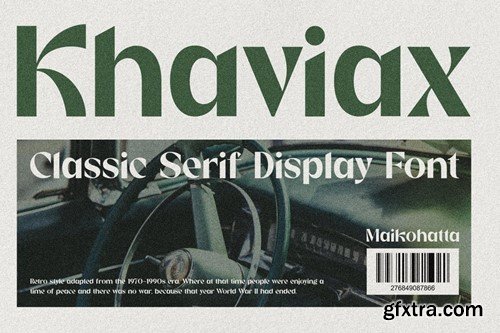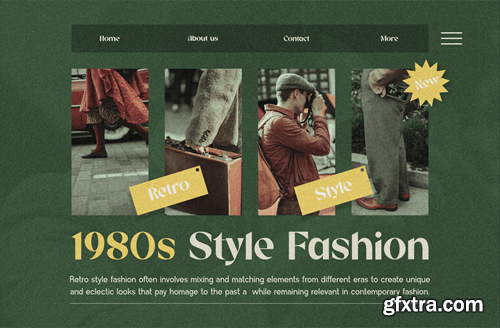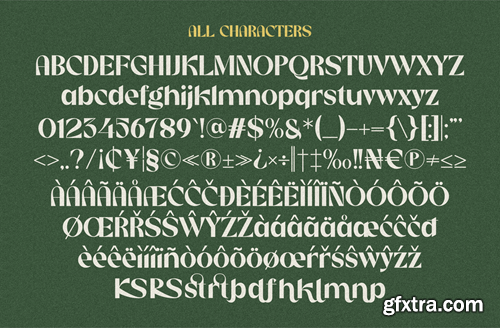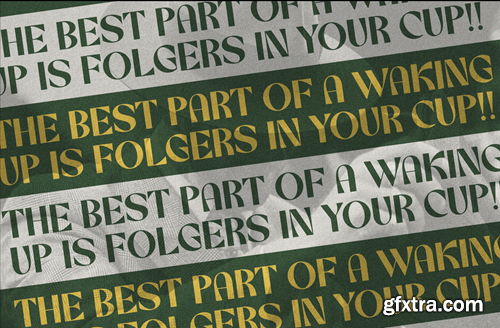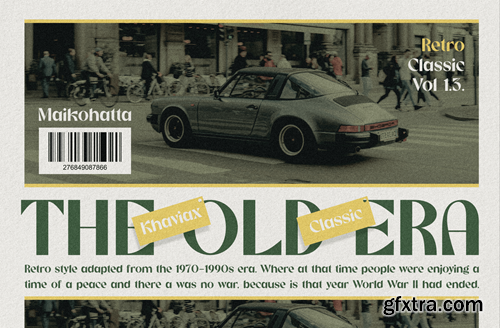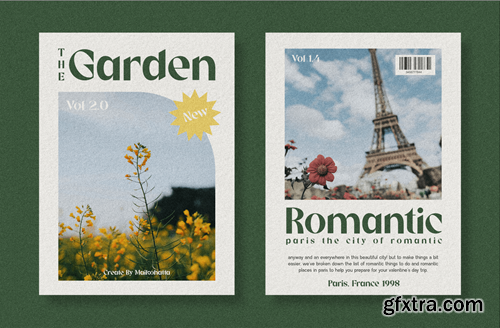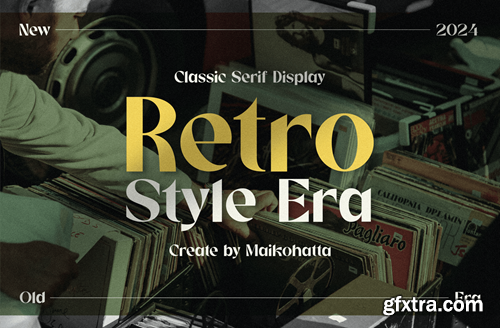
Khaviax - 经典衬线无衬线字体 YGTBGHB
Khaviax - Classic Serif Display Font
Introducing our new product Khaviax Classic Serif Display Font This font has a series of small or decorative projections called serifs at the ends of its characters. Serifs provide a more formal, classic, and easy-to-read appearance to printed text. Serif fonts are often used in formal documents, books, and print publications because of their good legibility at small text sizes. available